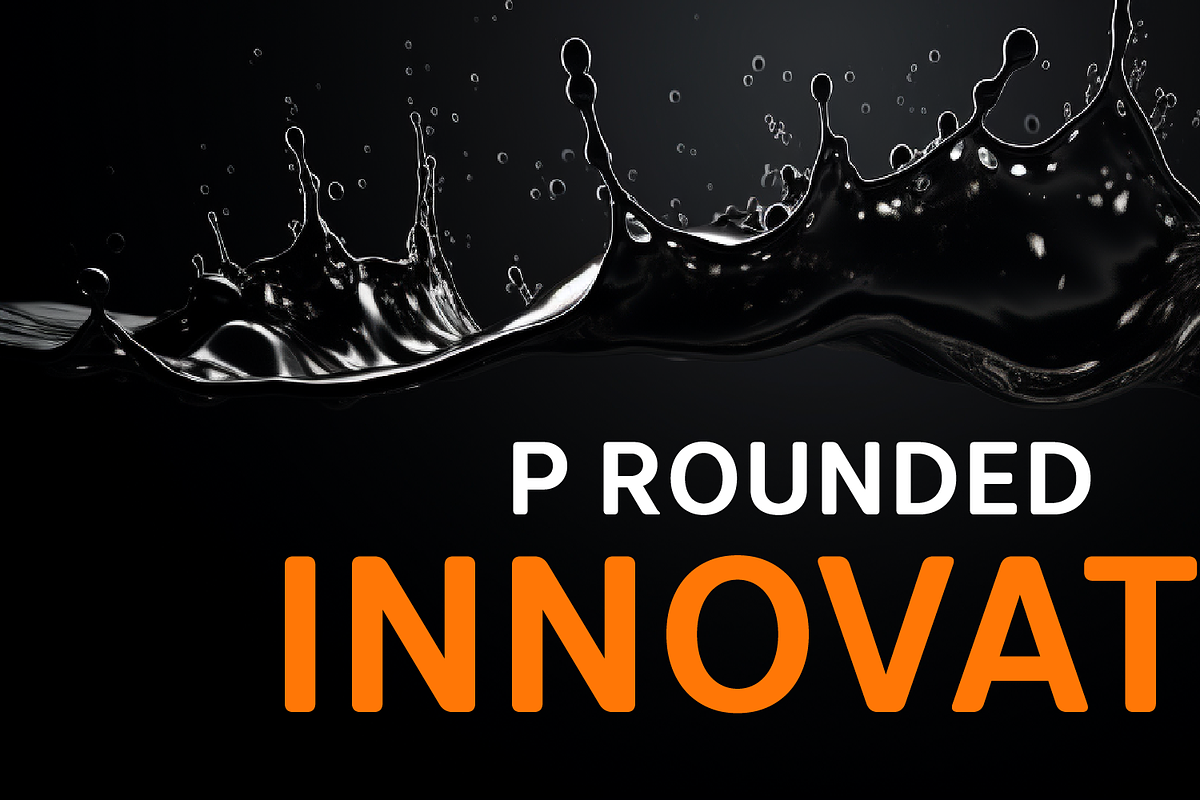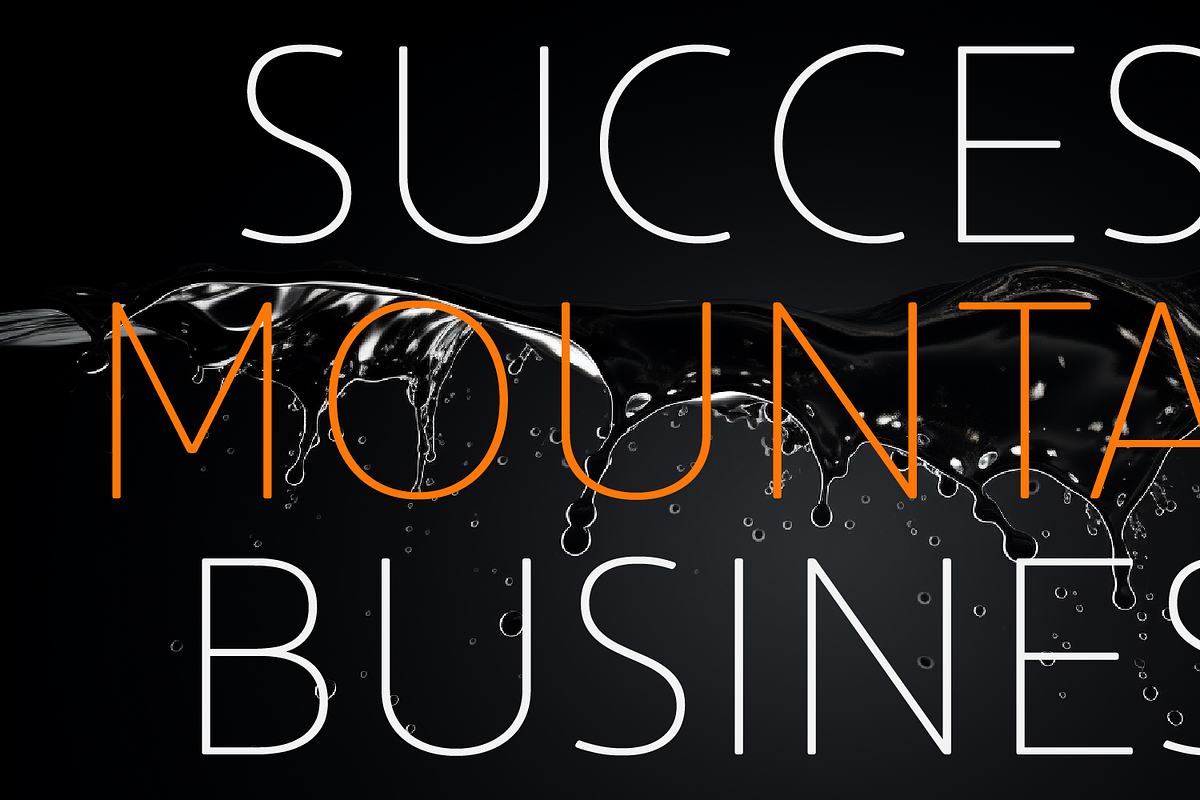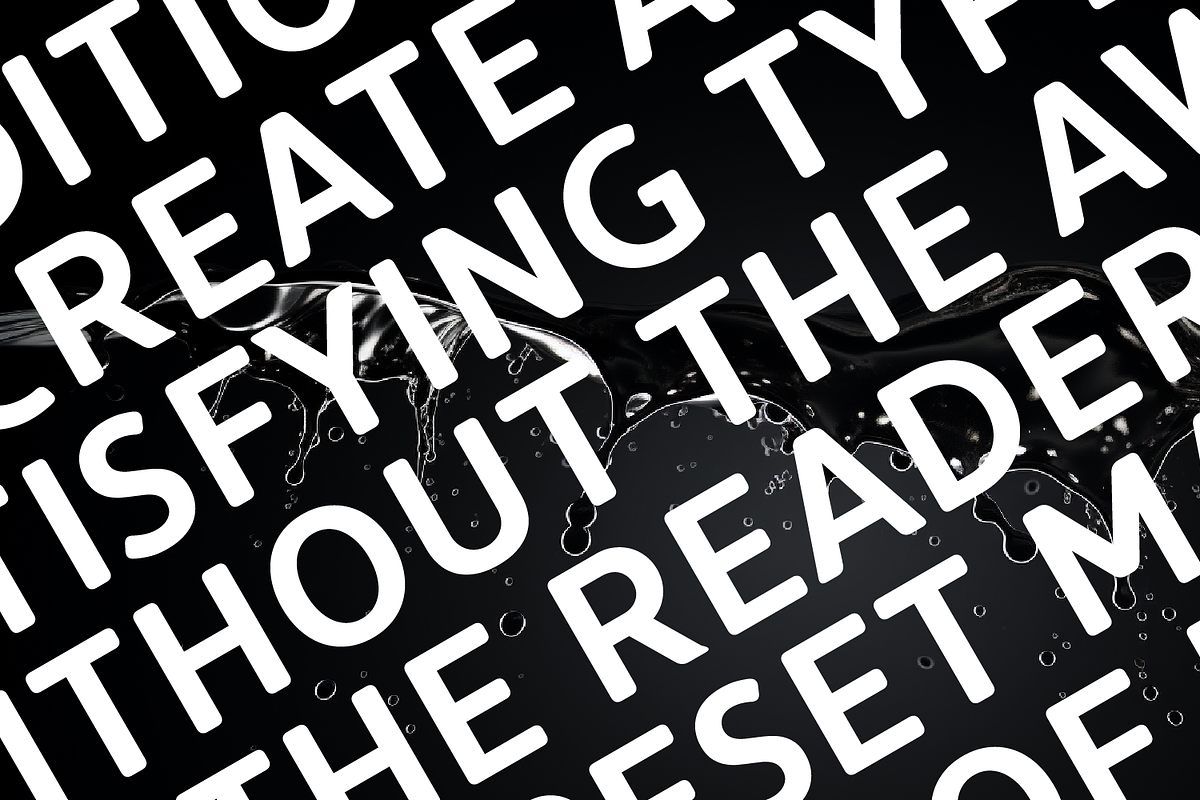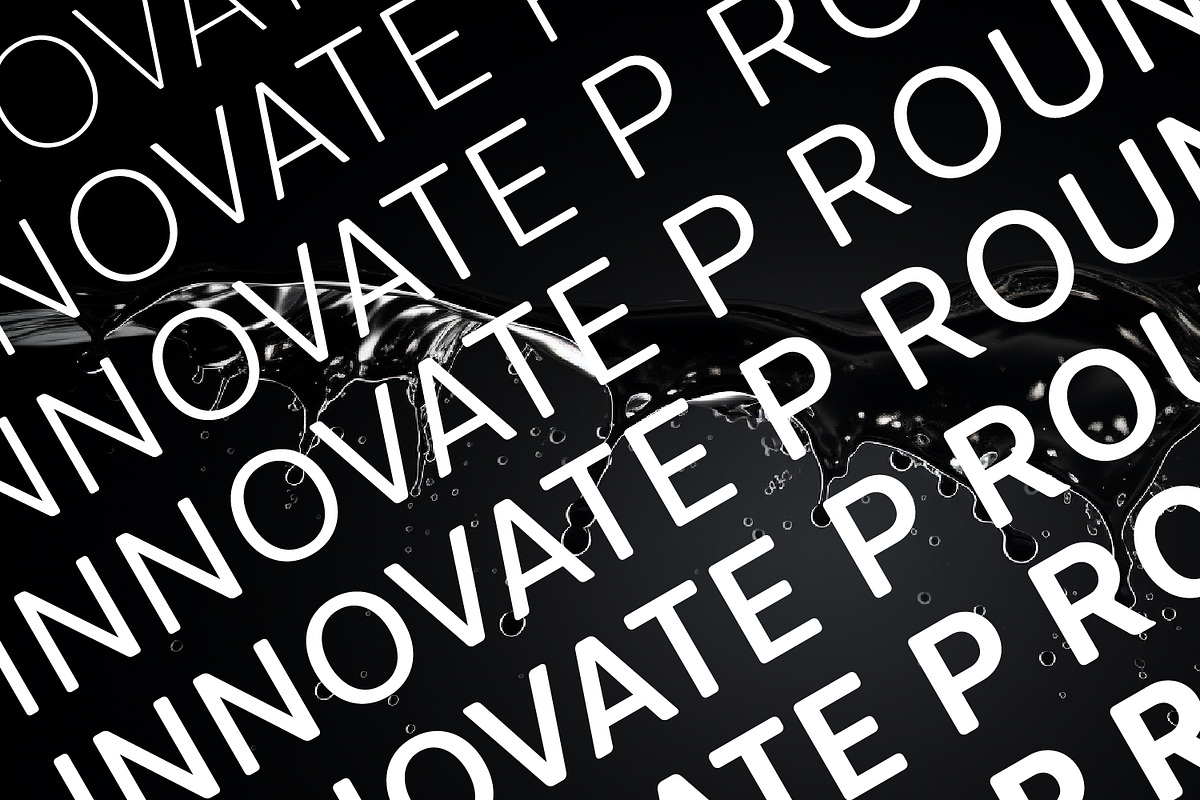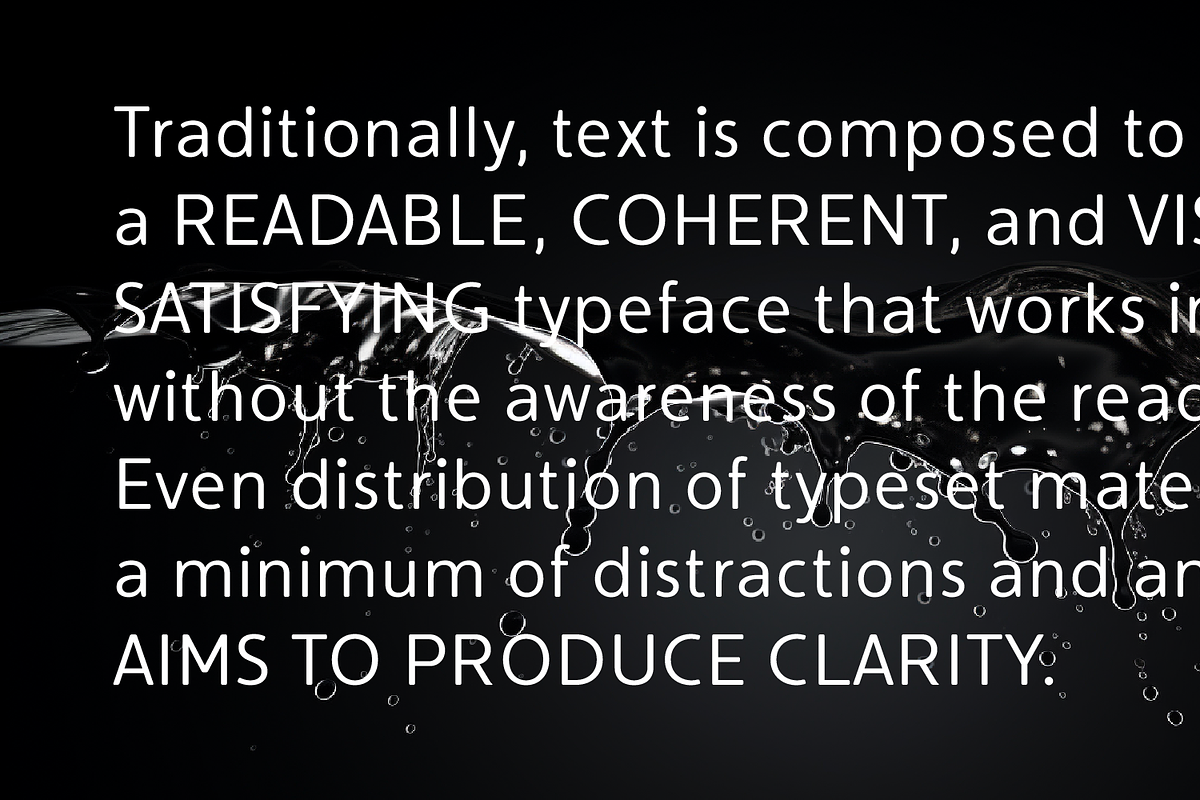
Innovate P Rounded
Innovate P Rounded is a modern versatile sans-serif typeface based on Innovate font family. What differentiates Innovate from the other fonts is an exceptionally distinctive design. It is brilliantly suited for graphic design and display use and perfect for logotypes, t-shirts, packaging, brand identity, books, magazines, newspapers, posters, billboards, and advertising.